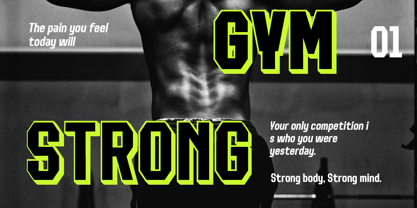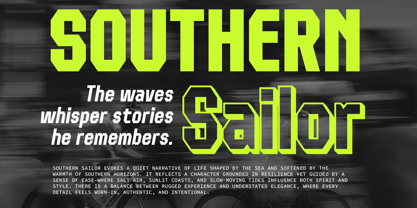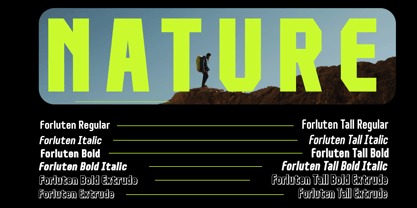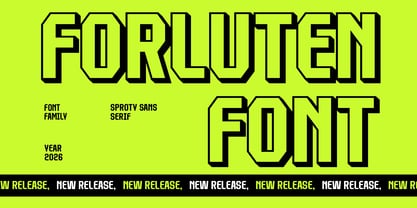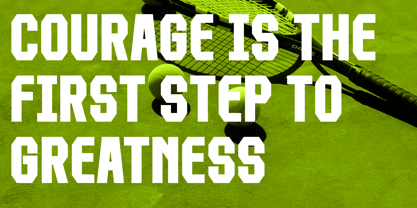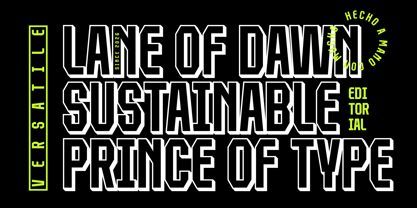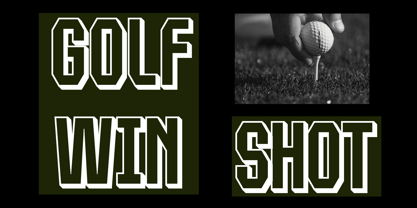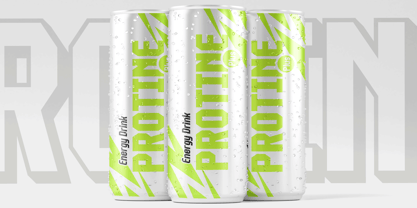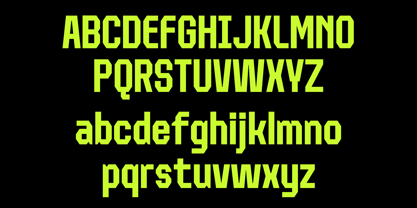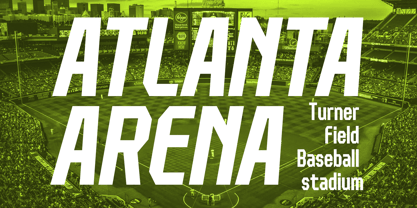
Forluten is a bold condensed font tailored for modern and impactful display use. With its strong and commanding presence, Forluten excels in delivering attention-grabbing headlines, branding projects, and posters that need to stand out. Its well-defined, compact letterforms make it perfect for designs that need to communicate power and clarity without taking up excessive space.
Inspired by contemporary typographic trends, Forluten merges bold aesthetics with legibility, making it versatile for both print and digital media. Whether used for magazine titles, website headers, or promotional materials, Bracked ensures your message resonates with precision and strength.
Forluten unique condensed style brings a professional and sleek edge to any project. It's an ideal choice for creatives looking for a modern typeface that leaves a lasting impression and pairs seamlessly with other design elements.
Forluten Font Features:
Distinctive Bold Condensed Characters
Punctuation, Number, and Symbol
Include 12 fonts already
Uppercase and Lowercase
Opentype Features
Multilingual Characters for:
Afrikaans, Albanian, Asu, Basque, Bemba, Bena, Breton, Chiga, Cornish, Dutch, English, Estonian, Filipino, Finnish, Friulian, Galician, German, Gusii, Indonesian, Irish, Italian, Kabuverdianu, Kalenjin, Kinyarwanda, Luo, Luxembourgish, Luyia, Machame, Makhuwa-Meetto, Makonde, Malagasy, Manx, Morisyen, North Ndebele, Nyankole, Oromo, Portuguese, Quechua, Romansh, Rombo, Rundi, Rwa, Samburu, Sango, Sangu, Scottish Gaelic, Sena, Shambala, Shona, Soga, Somali, Spanish, Swahili, Swedish, Swiss.